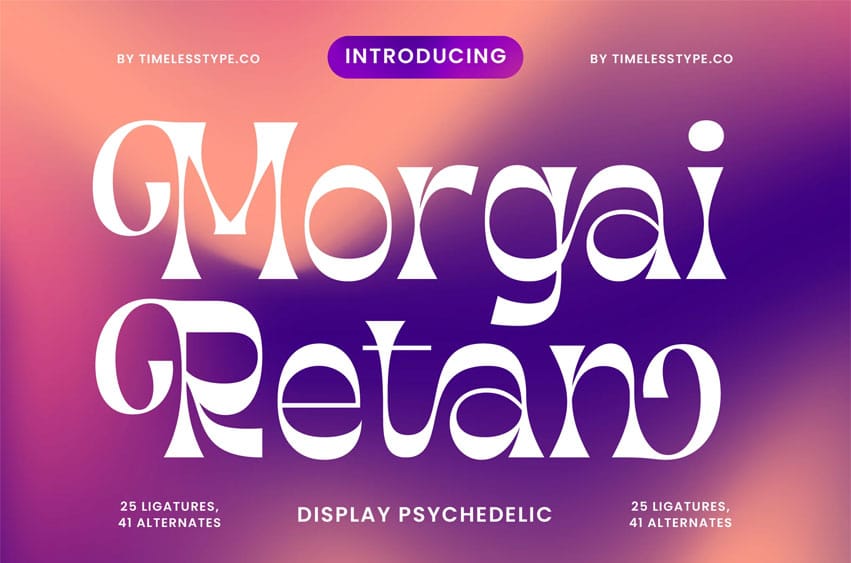
Morgai Retan Font is a display psychedelic serif font that captures the free-spirited energy of the 70s with a bold, artistic twist. Featuring 25 ligatures and 41 alternates, it delivers expressive curves and experimental shapes that make your designs stand out.
Perfect for posters, music covers, branding, and retro-inspired visuals, Morgai Retano brings a vibrant mix of creativity and nostalgia to every project.